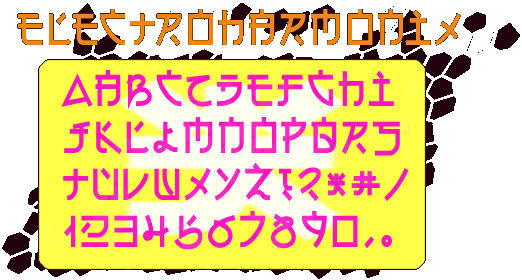
It's a fake Japanese font for all your fake Japanese font needs. Need some fake Japanese writing? This is the font to use. Need to write to some fake Japanese people? Use this font. Get the idea?